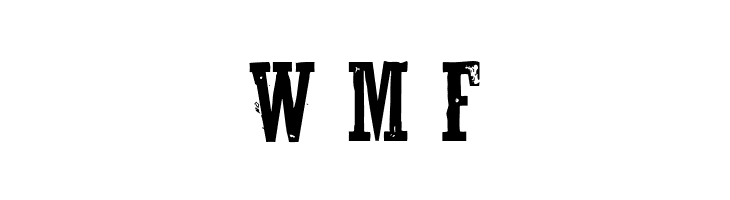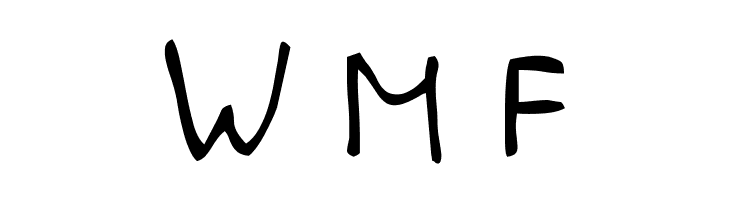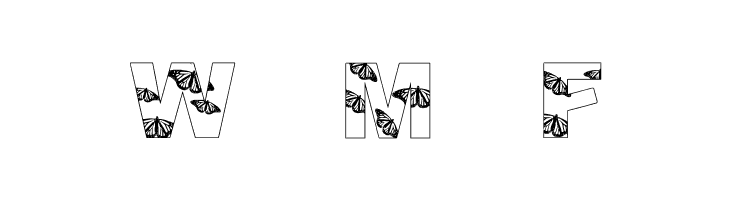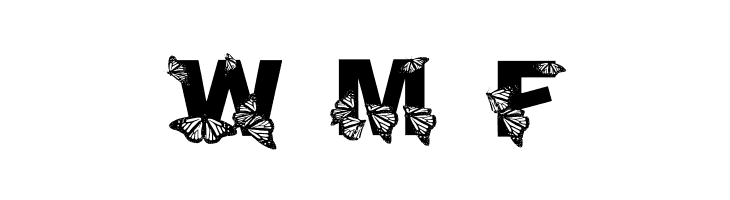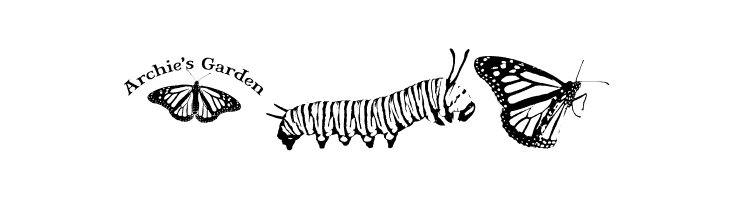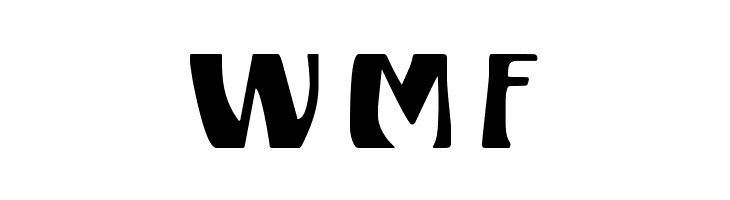
A playful and whimsical font with bold, dynamic characters and a unique style.
A sleek, modern font with elongated, thin letterforms and a minimalist design.
A bold, decorative font with butterfly motifs in uppercase and numbers.
Intricate butterfly and caterpillar dingbats for decorative use.
A decorative font with intricate butterfly and floral patterns in uppercase letters and numbers.
A playful, hand-drawn font with a sketch-like, textured appearance.
A playful, hand-drawn outline font with wobbly, uneven lines.
A bold, distressed font with a vintage, rugged appearance.